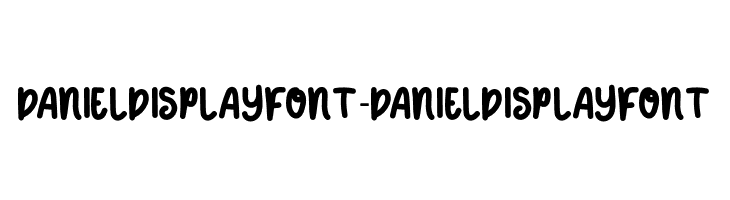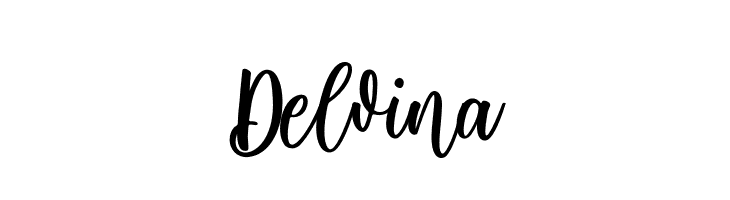
A lively and expressive handwritten font with fluid, dynamic letterforms.
A sophisticated script font with flowing, elegant curves and high contrast.
An elegant script font with graceful, flowing lines and intricate flourishes.
A sophisticated and flowing script font with elegant cursive letterforms.
A lively, expressive script font with a handwritten feel and elegant swashes.
A sleek, modern font with clean lines and a minimalist aesthetic.
A graceful script font with flowing, cursive letters and elegant swashes.
A bold, handwritten font with fluid, connected strokes and a casual, energetic style.
A lively, expressive handwritten font with fluid, connected letterforms.
A bold, playful handwritten font with rounded strokes and a lively appearance.